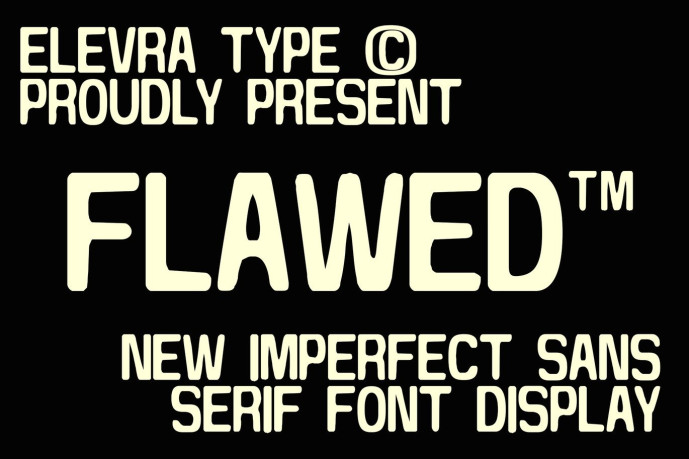
Flawed Font
Designer: Elevra
Flawed Font is a raw, noisy, and totally imperfect sans-serif display typeface designed to resemble a counterfeit print from an underground zine. Its thick forms, uneven curves, and deliberately “mistaken” details create a strong DIY attitude, perfect for designers looking for typography full of character, grit, and impact.
Designed to stand out in headlines, Flawed is ideal for poster design, music artwork, skate graphics, editorial covers, and bold social media visuals. Its aged feel gives the typeface an analog energy, like a photocopied punk flyer or a worn vintage print, while still remaining legible and clean.
If you’re looking for a modern display font that looks handcrafted, expressive, and full of personality, Flawed offers that imperfect charm without too much effort.